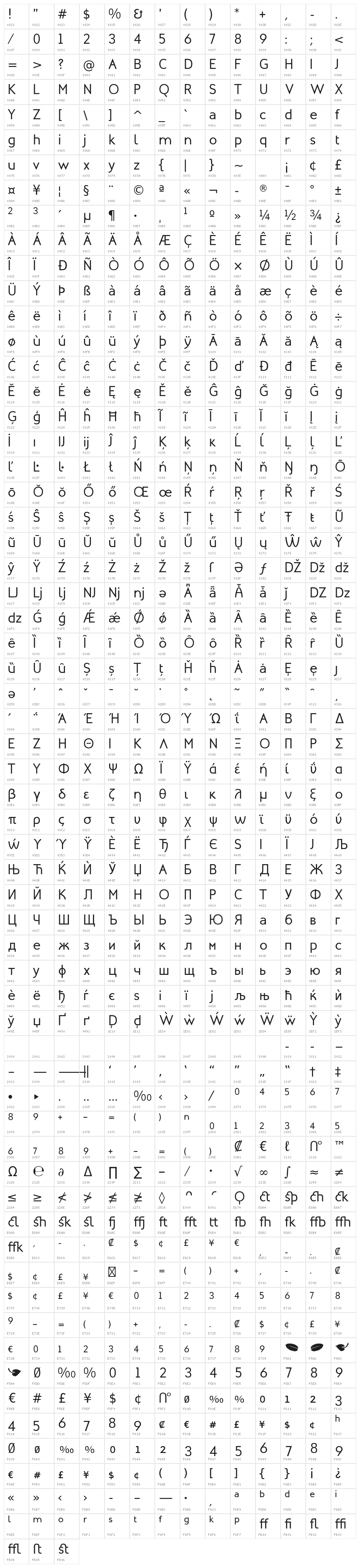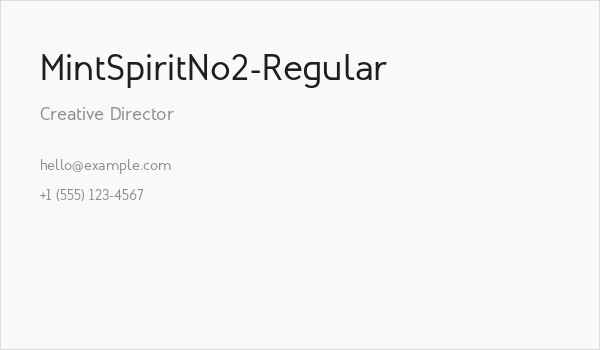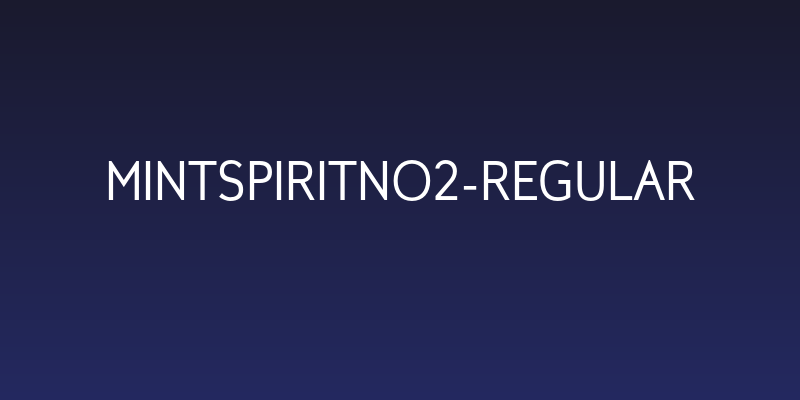
MintSpiritNo2-Regular Font
MintSpiritNo2-Regular Description
This font features a clean and modern sans-serif design with a geometric structure. The characters are well-balanced, offering a harmonious blend of curves and straight lines. The uppercase letters are bold and assertive, while the lowercase letters maintain a friendly and approachable appearance. The numerals are clear and easy to read, making them suitable for various applications. Special characters are distinct and well-integrated into the overall design, ensuring versatility in usage. The font's simplicity and clarity make it ideal for digital and print media, providing excellent readability across different sizes.